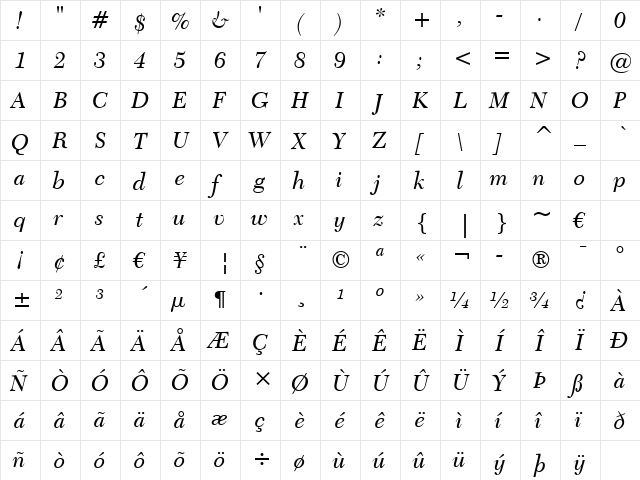
Transit511 BT Italic
Design Context for Transit511 BT Typeface
Transit511 BT takes a measured approach to typography — its balanced proportions and neutral character make it a reliable workhorse for both digital and print work. The dynamic lean of this cut emphasises speed and emphasis in any layout.
Pro Tip: Try Transit511 BT for annotation and caption copy alongside an upright companion — the contrast in angle creates a dynamic but ordered typographic system.